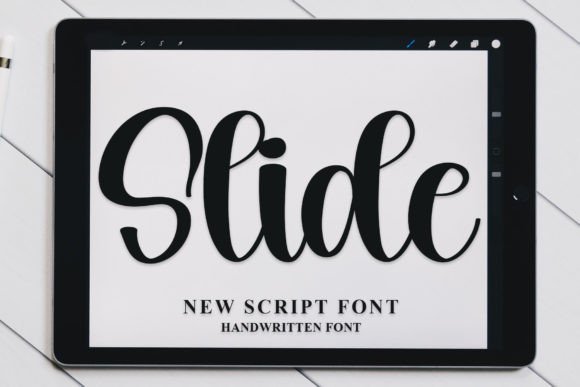
Dive into the realm of typography and discover Slide Font, an elegant handwritten font that will add a touch of individuality to your creative projects. Its playful letterforms dance across the page, evoking a sense of whimsy and charm. Impeccably crafted by Inermedia STUDIO, Slide Font breathes life into your designs, transforming them into captivating expressions of your unique style.
Embark on a typographic journey with Slide Font, letting its natural, handwritten style infuse your projects with a charming and personal touch. Its irregular and playful letterforms create a visual intrigue that captivates the eyes and sparks curiosity. Whether you're designing logos, branding elements, or eye-catching social media posts, Slide Font will elevate your designs to new heights of creativity.
With Slide Font at your fingertips, you'll have the power to craft designs that resonate with your audience on a deeper level. Its unique charm and quirky personality add a layer of depth and authenticity to your projects, making them stand out in a sea of uniformity. Embrace the power of Slide Font and watch as your designs transform into captivating expressions of your individuality.
Unleash your creativity and immerse yourself in the boundless possibilities of Slide Font. Explore the endless ways to incorporate its whimsical letterforms into your designs, creating stunning visuals that leave a lasting impression. From website design to social media graphics, Slide Font is the ultimate tool for crafting designs that captivate and inspire.